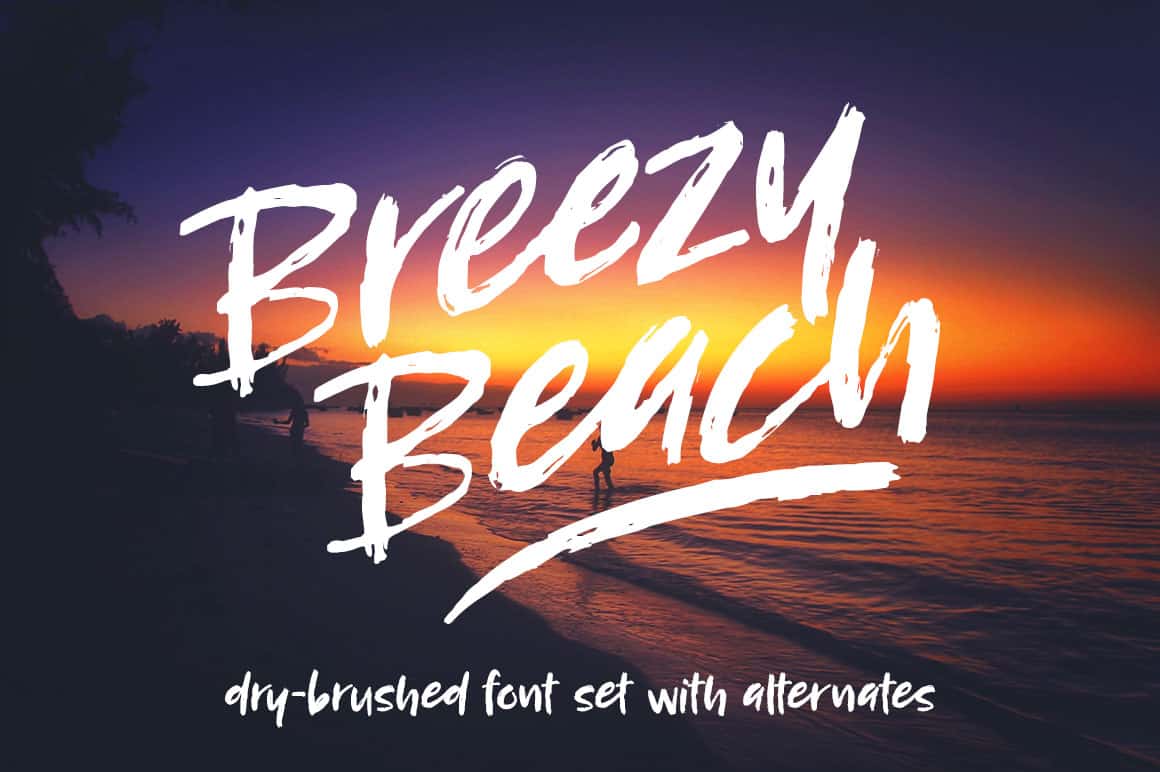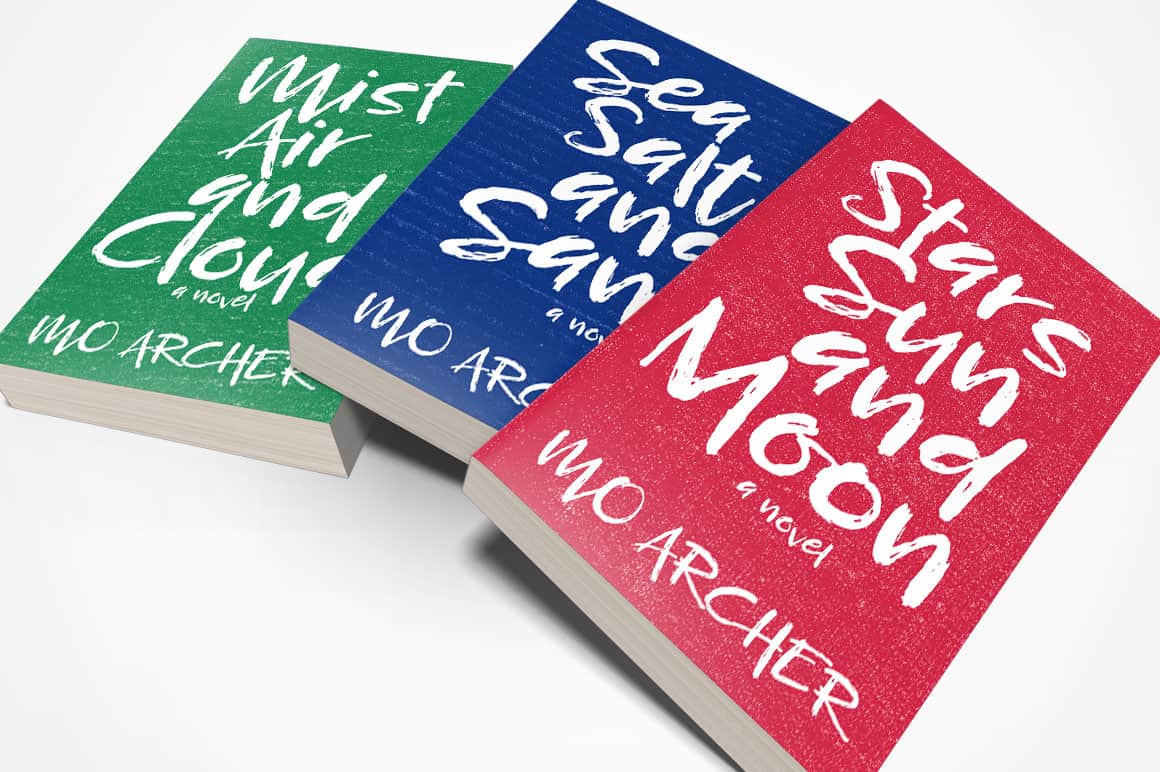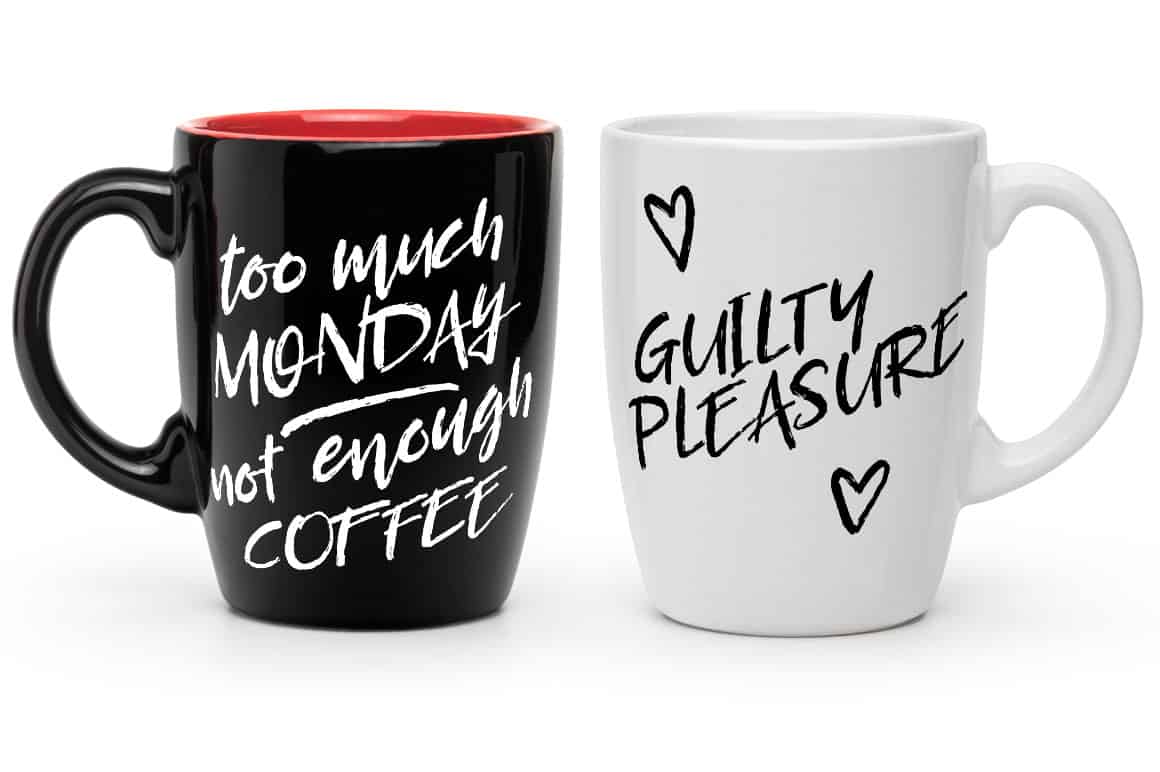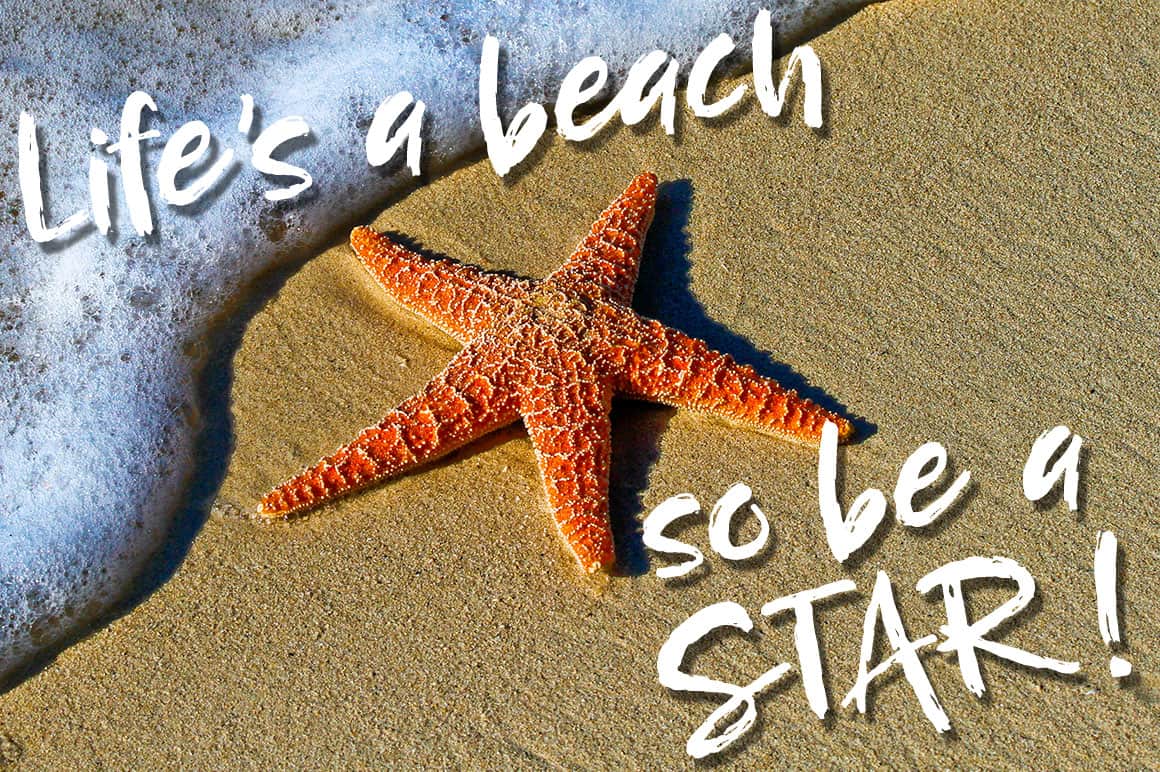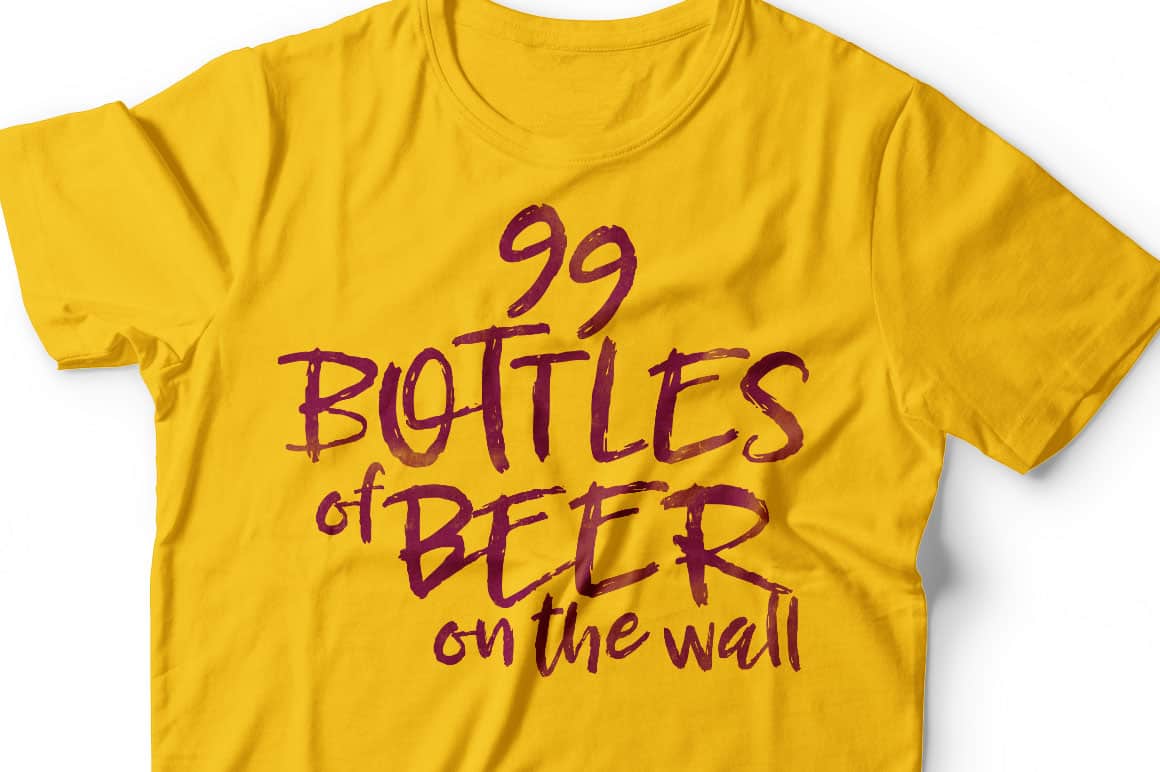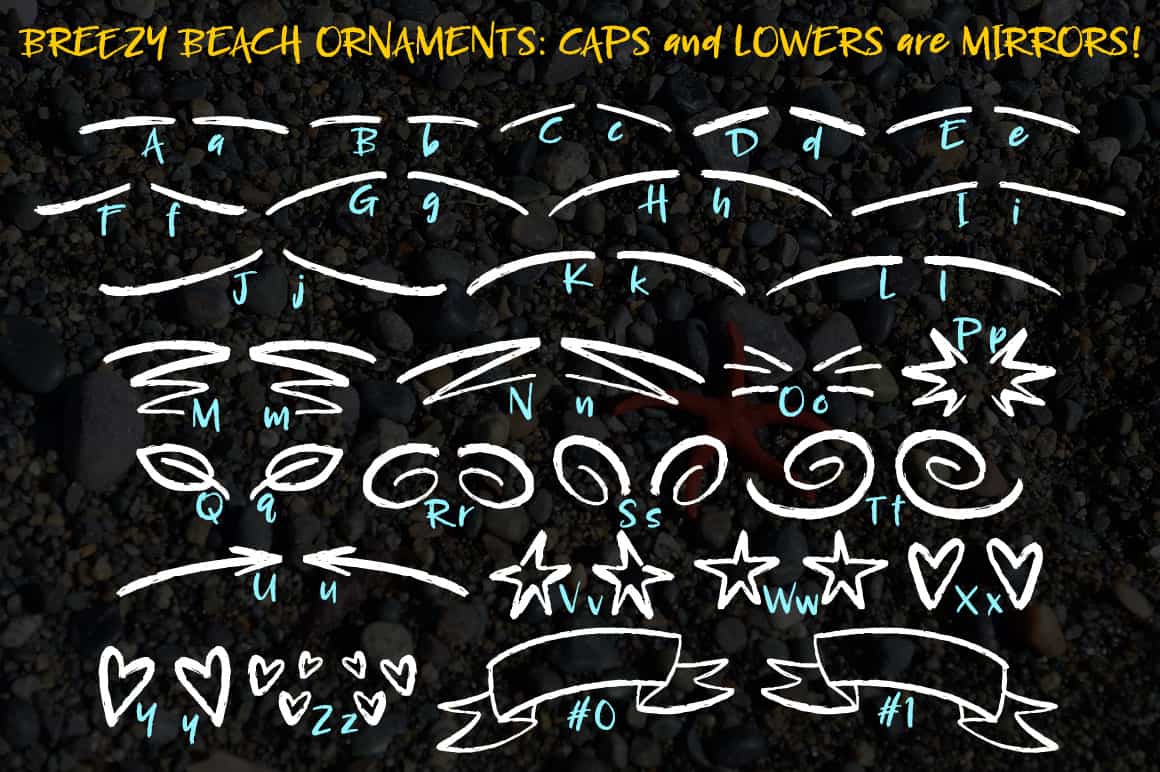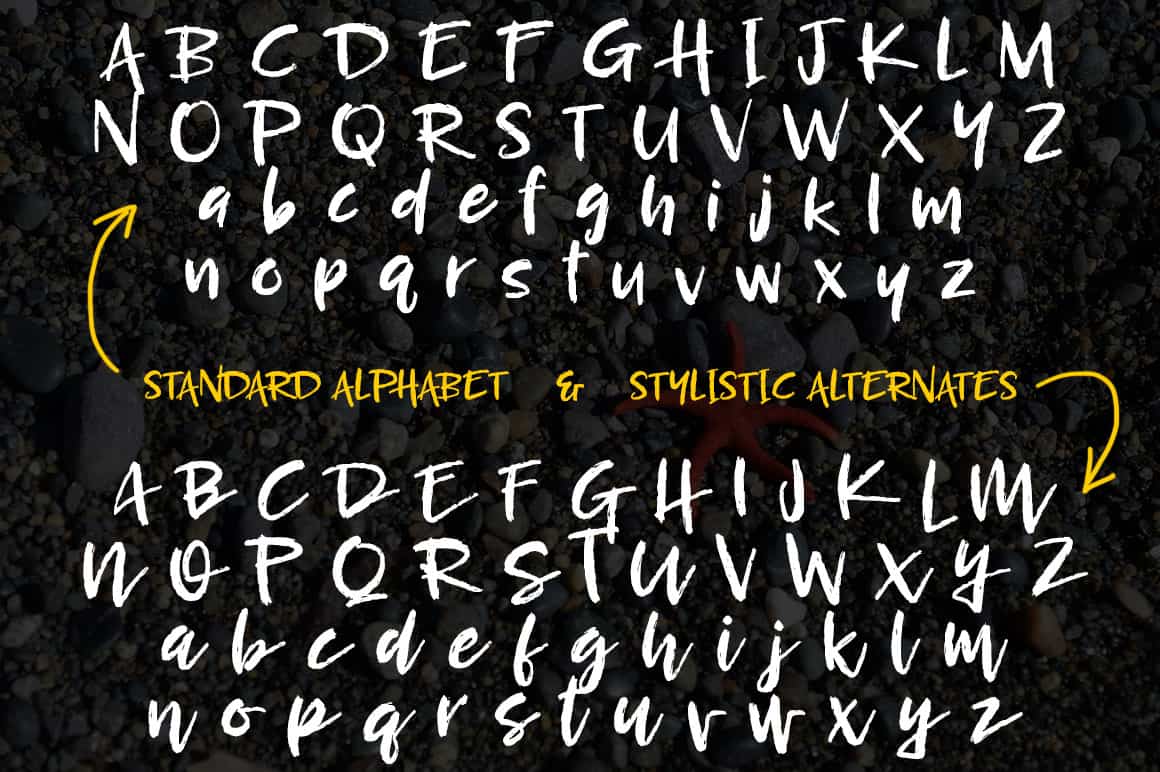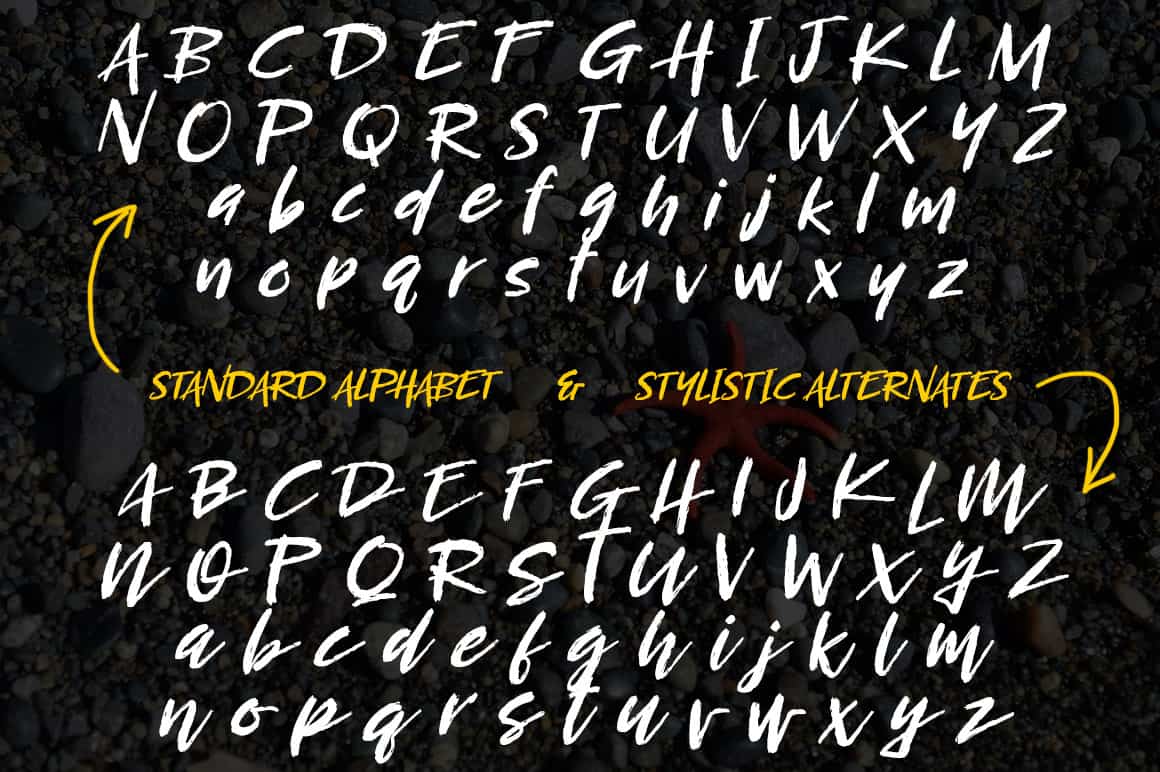
Breezy Beach
Breezy Beach is a dry-brushed font with a full set of alternates, a partner italic font, and a full set of swashes and ornaments.
Breezy Beach is a dry-brush font that can add some personality to any design!
Breezy Beach is designed to work as an all-caps, mixed-case, or all-lowercase font, with a full set of stylistic alternate letters and numbers. Mix and match between standards and alternates to get a hand-crafted look!
If you want to angle your text upward, try Breezy Beach Steep! It has all the letters and features of Breezy Beach, but it’s tilted at a steeper angle. And highlight it all with the Breezy Beach Ornaments — a set of swashes and icons designed to work alongside the text!
Both Breezy Beach and Breezy Beach Steep also each contain over 200 accented characters for foreign language support (including English, French, Spanish, German, Polish, Romanian, Portuguese, Swedish, Finnish, Norwegian, Danish, Esperanto, Czech, Dutch, Welsh, Filipino, Turkish, and more!)